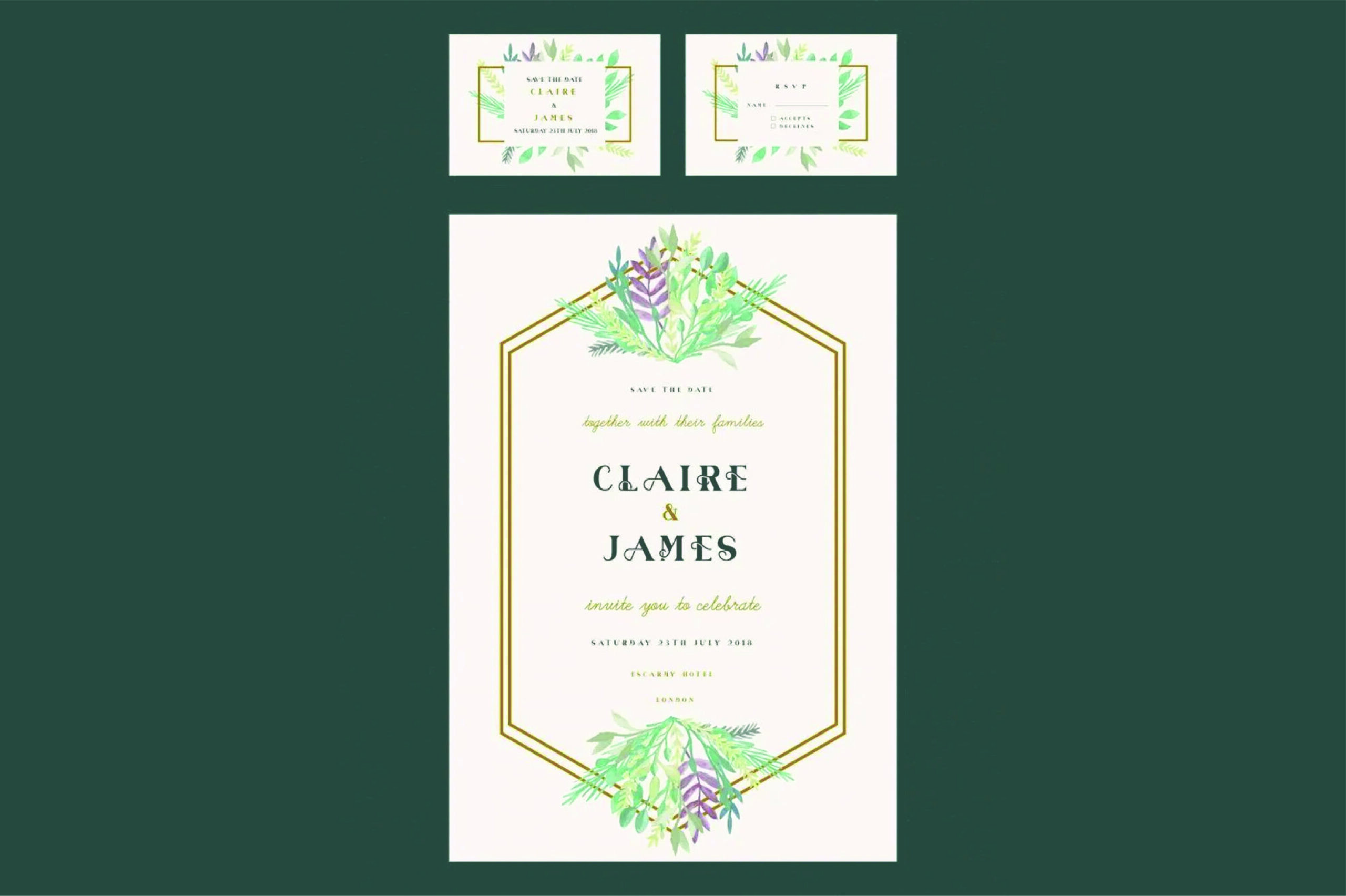
Aloen – Beautiful Font Duo
Introducing Aloen Font Duo + Extras! a beautiful decoration serif font from Drizy! This classy and smooth serif typeface. Perfect for gorgeous badges, logos & titles, Aloen will pair beautifully with many fonts and work well with whatever project you’re working on. And don’t forget that in this font I also gave 37 Foliage Watercolor, you can arrange them easily!